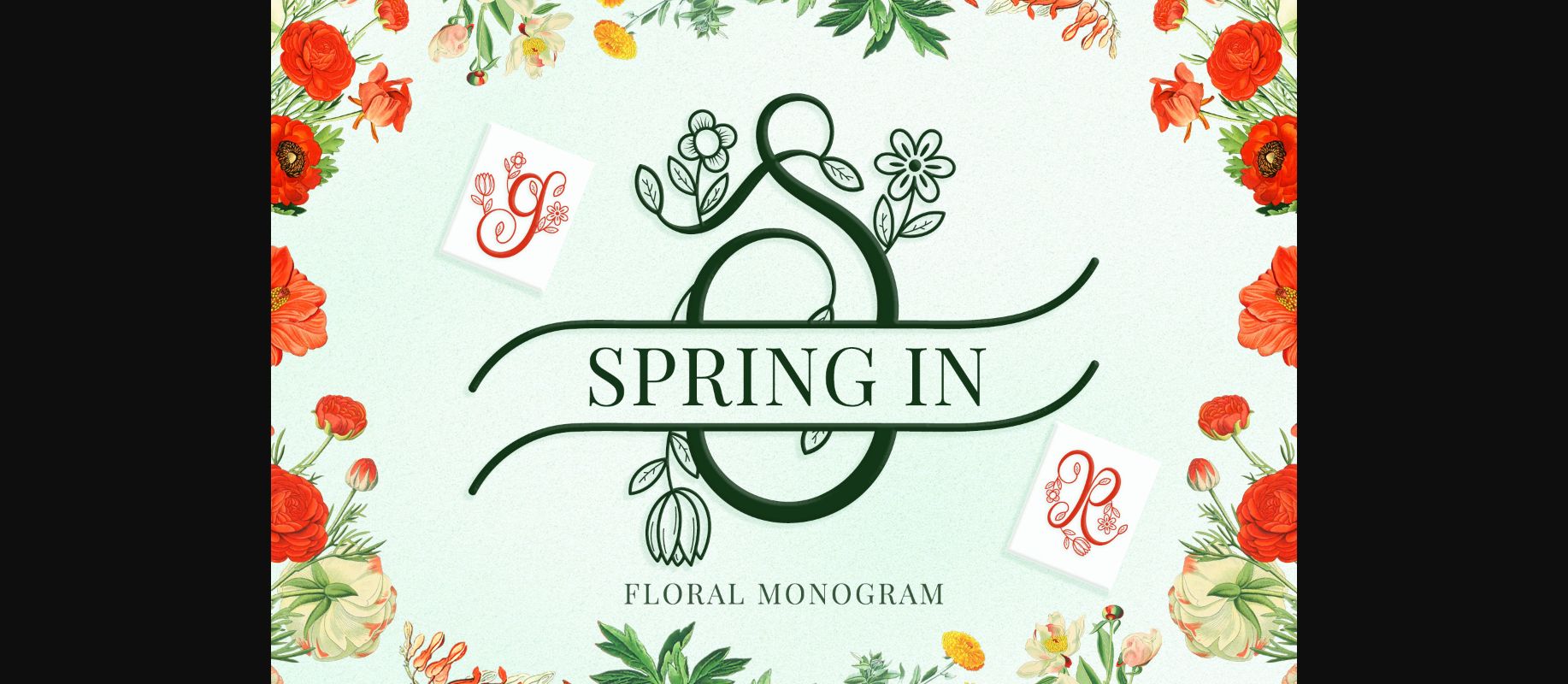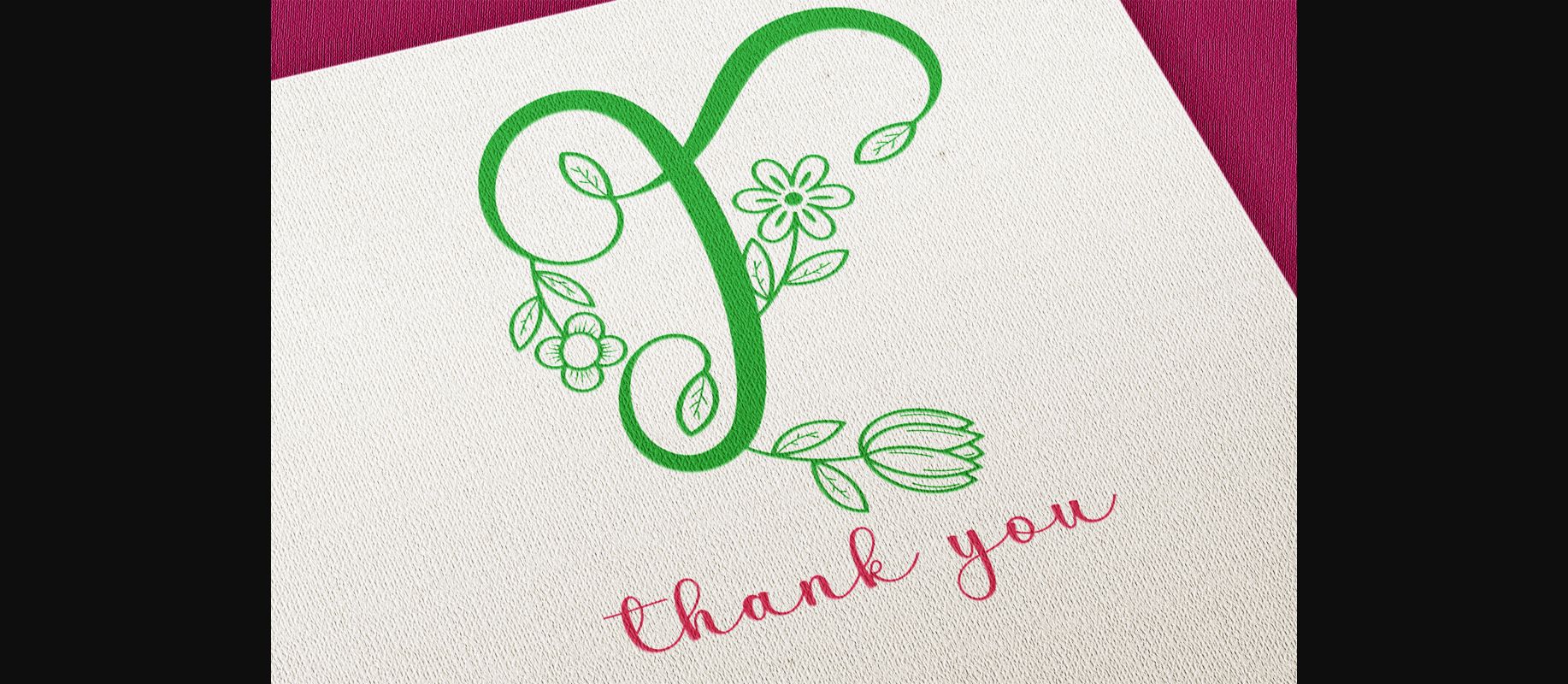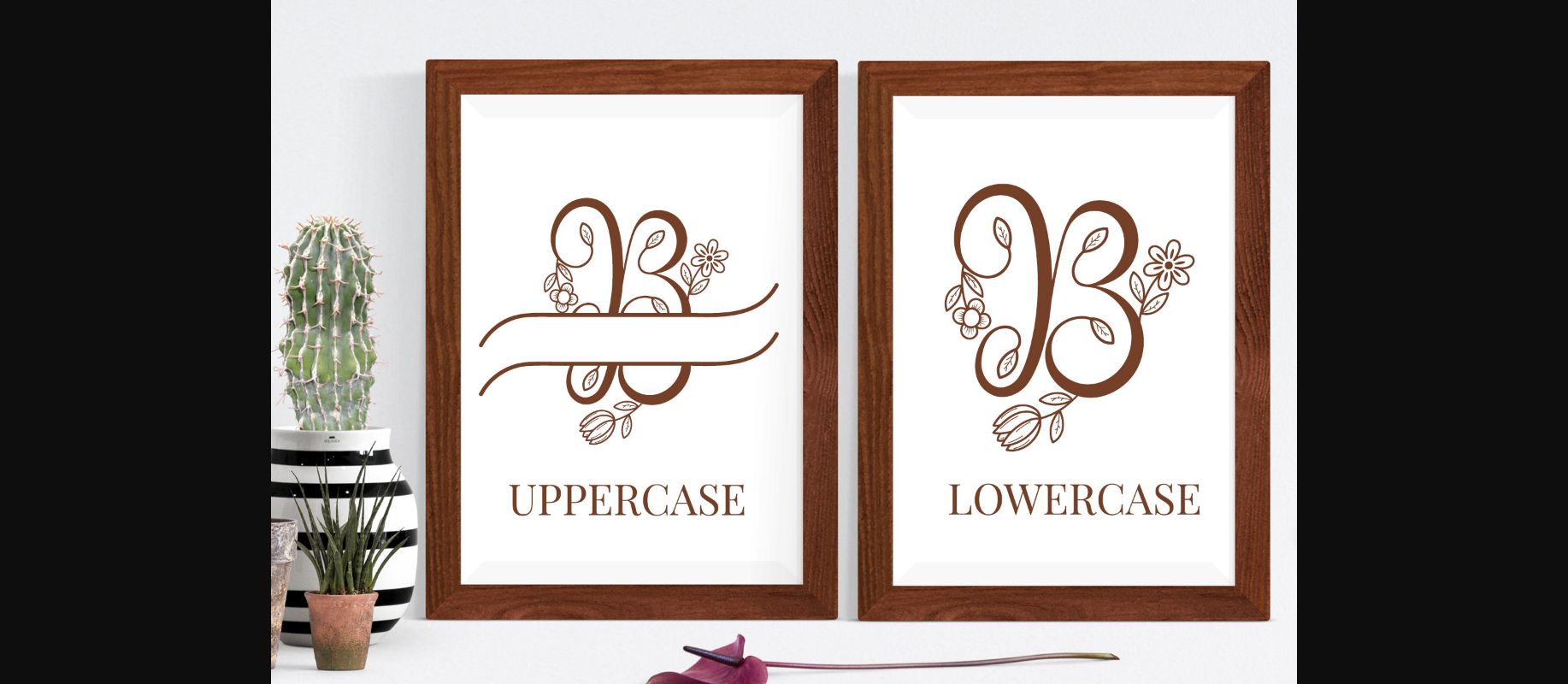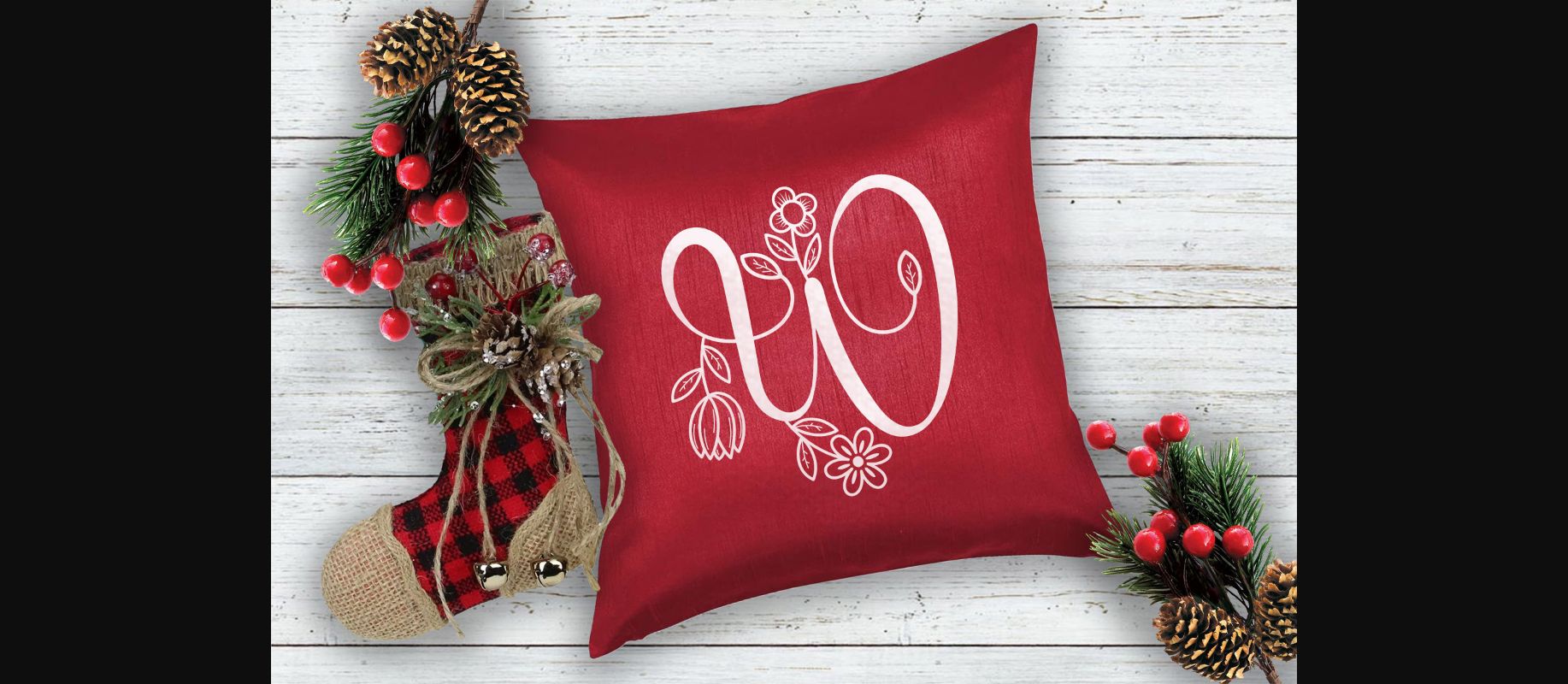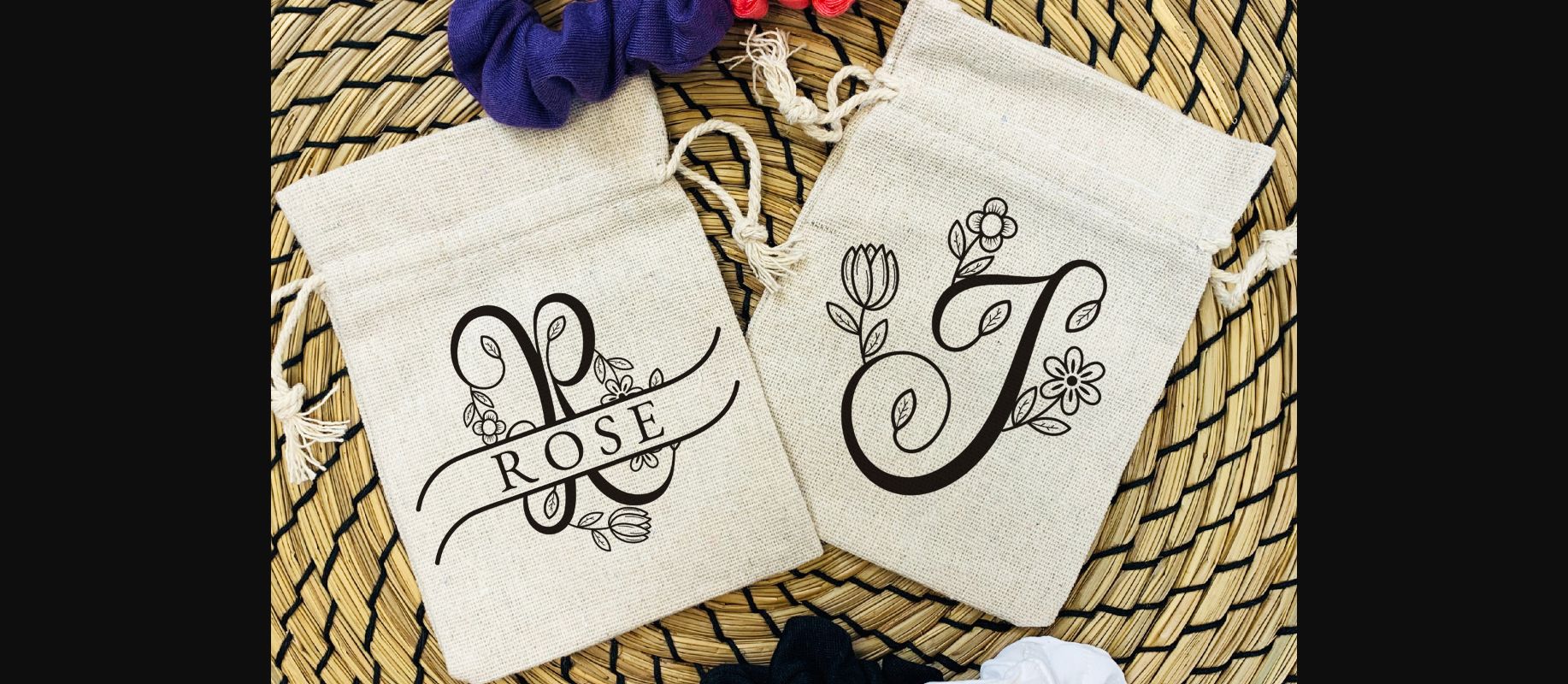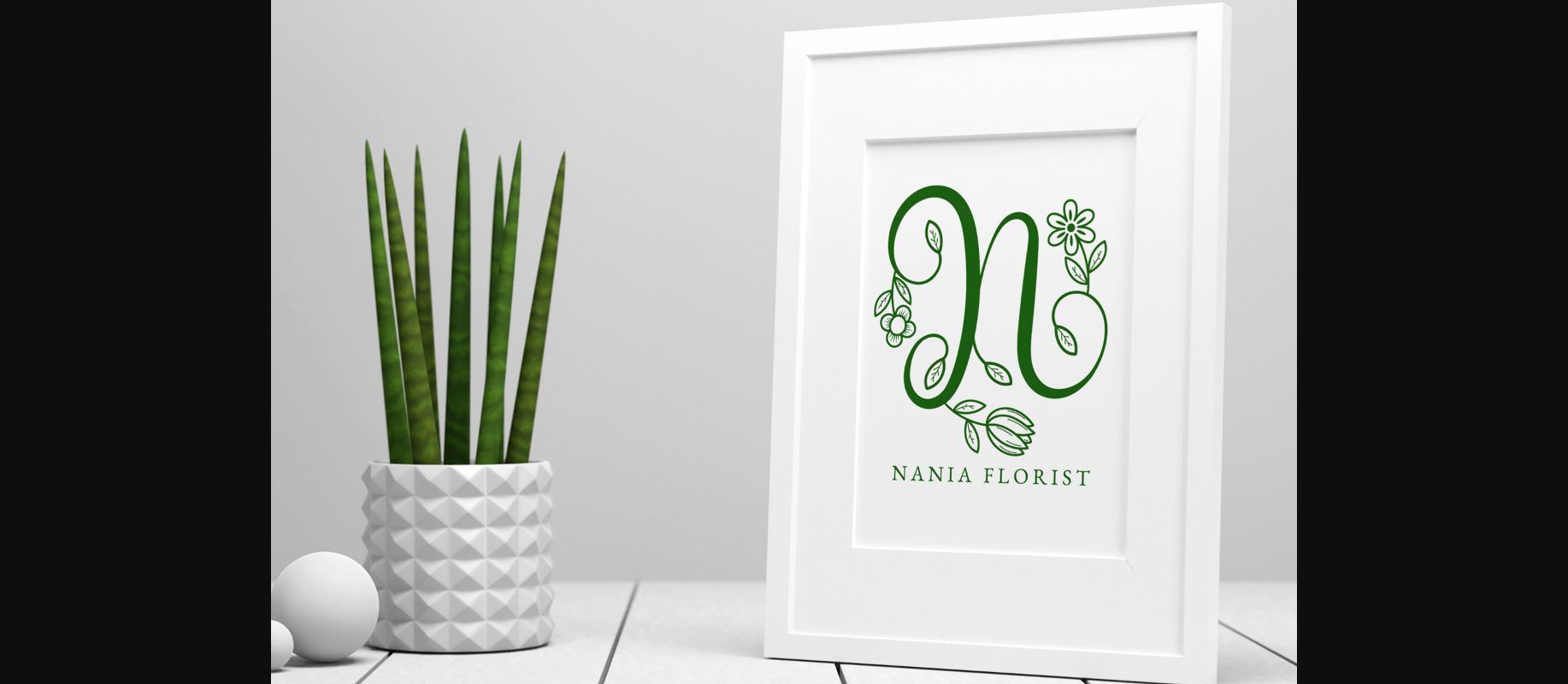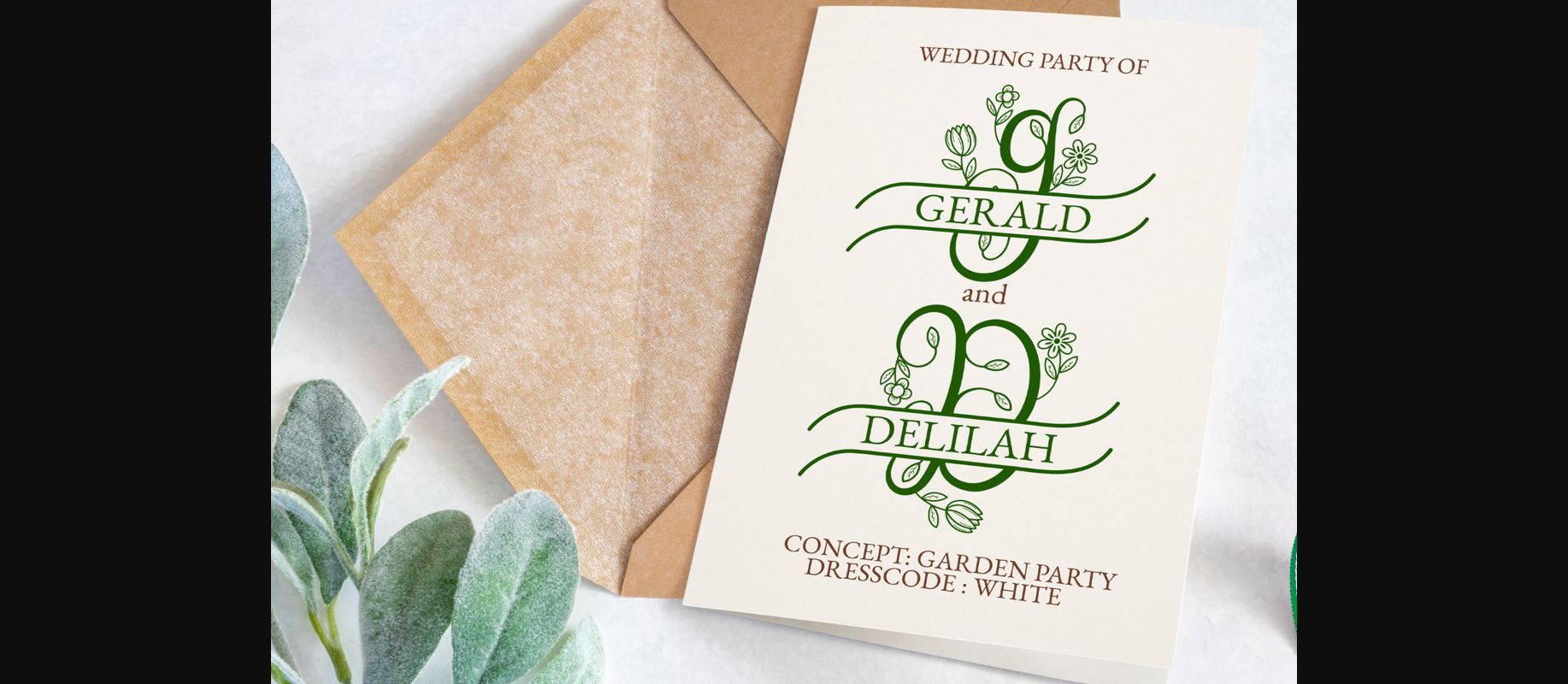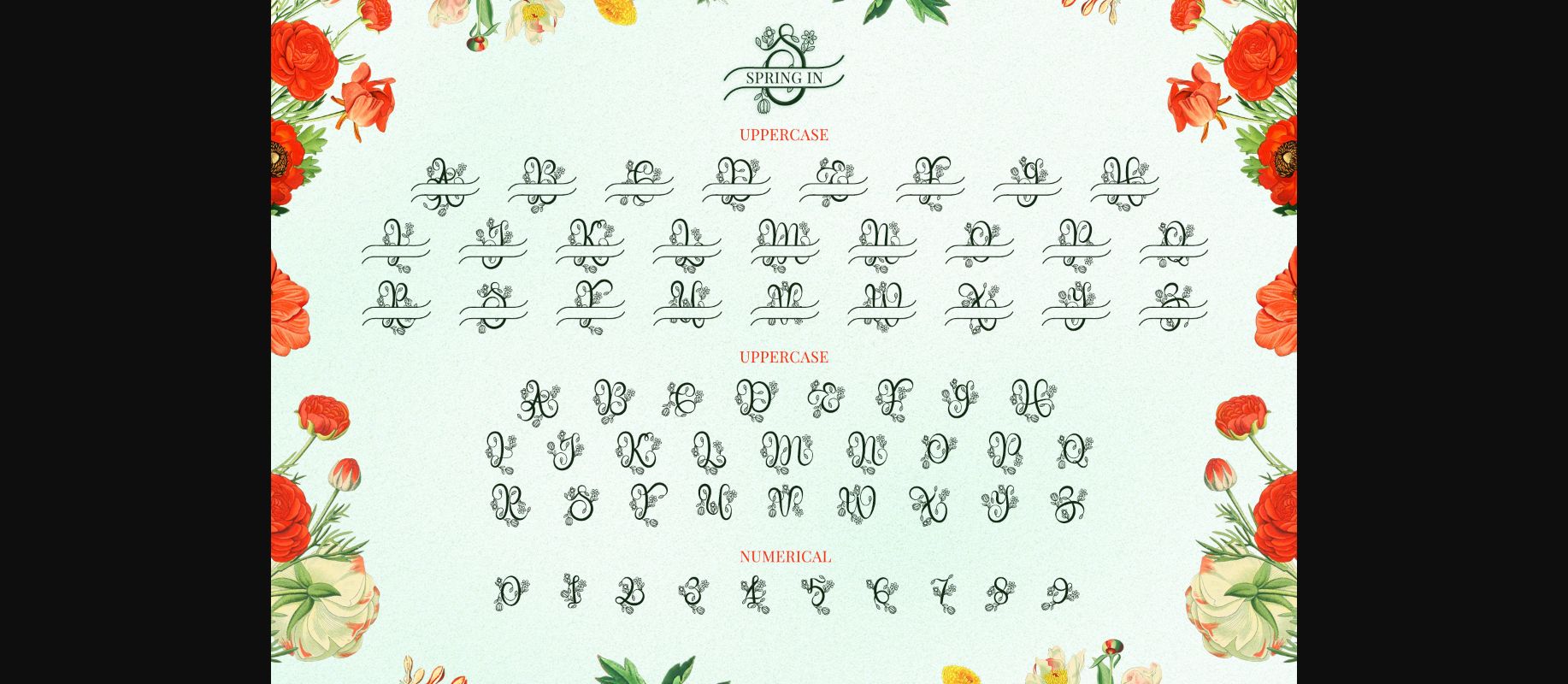
Spring in Monogram Font
About Spring in Monogram Font
Spring In Monogram is beautiful and unique monogram for spring season. It has authentic feeling and can be used for any crafting.